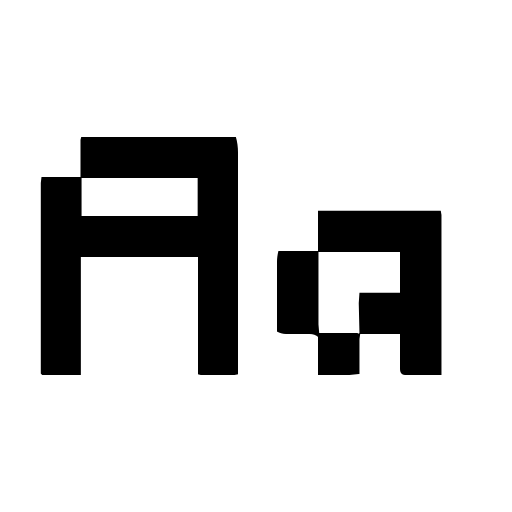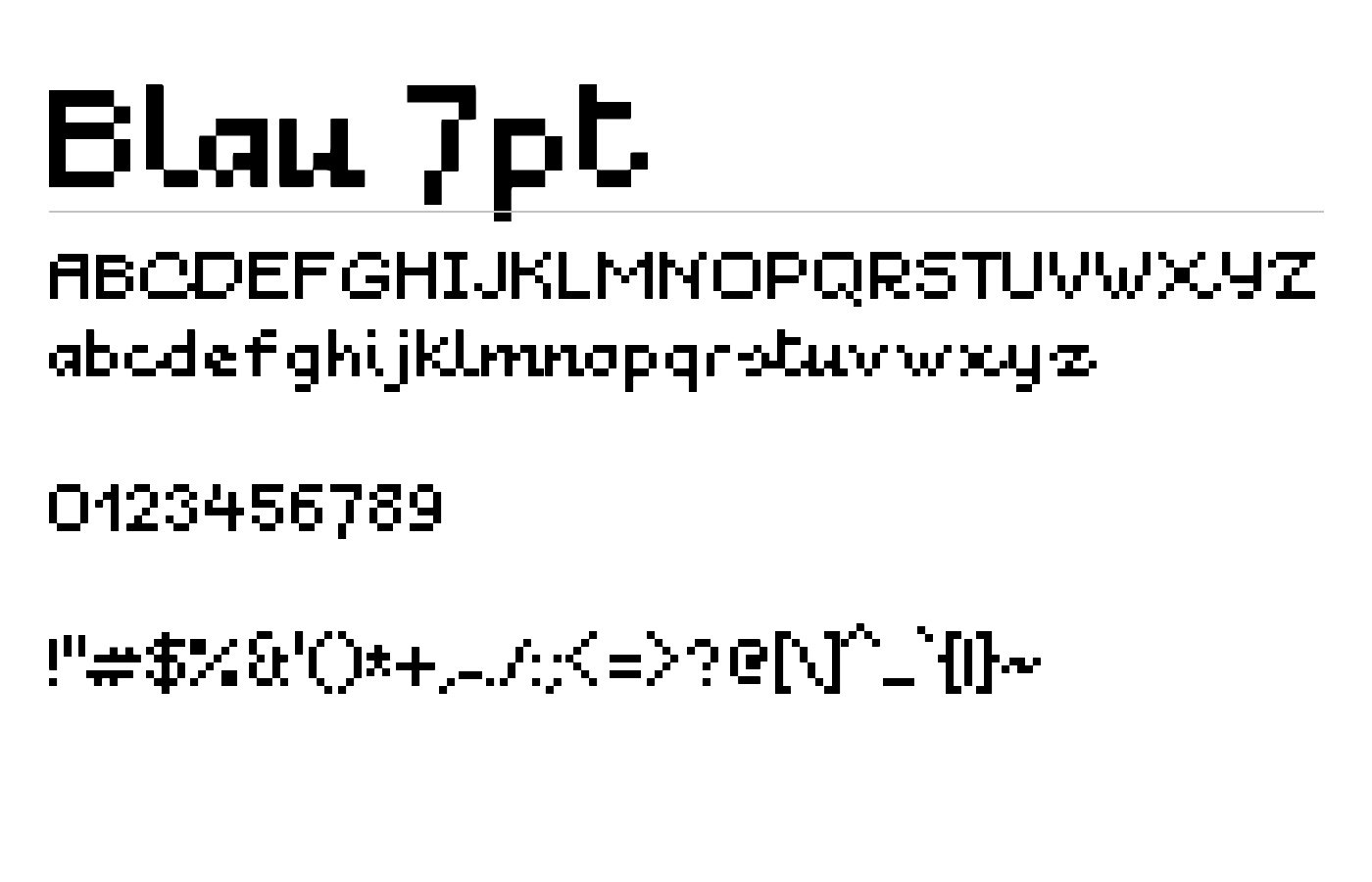
Blau 7pt is a pixelated sans serif font with a distinctly blocky and geometric appearance, reminiscent of early digital or video game text. Its consistent stroke weight, tight spacing, and square letterforms make it ideal for retro, tech-inspired designs or digital interfaces where clarity at small sizes is essential. This font works best for headlines, logos, or on-screen text where a nostalgic, minimalist, and techy vibe is desired.
Blau 7pt Font
About Blau 7pt Font